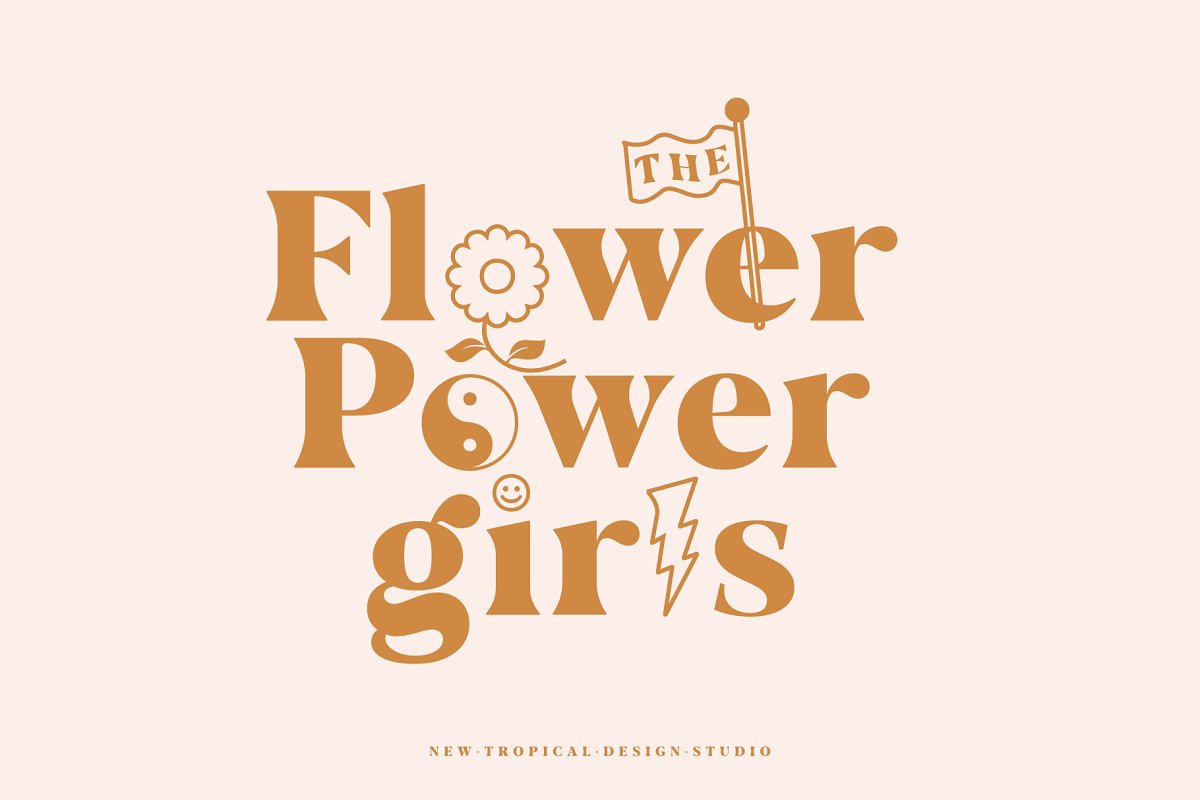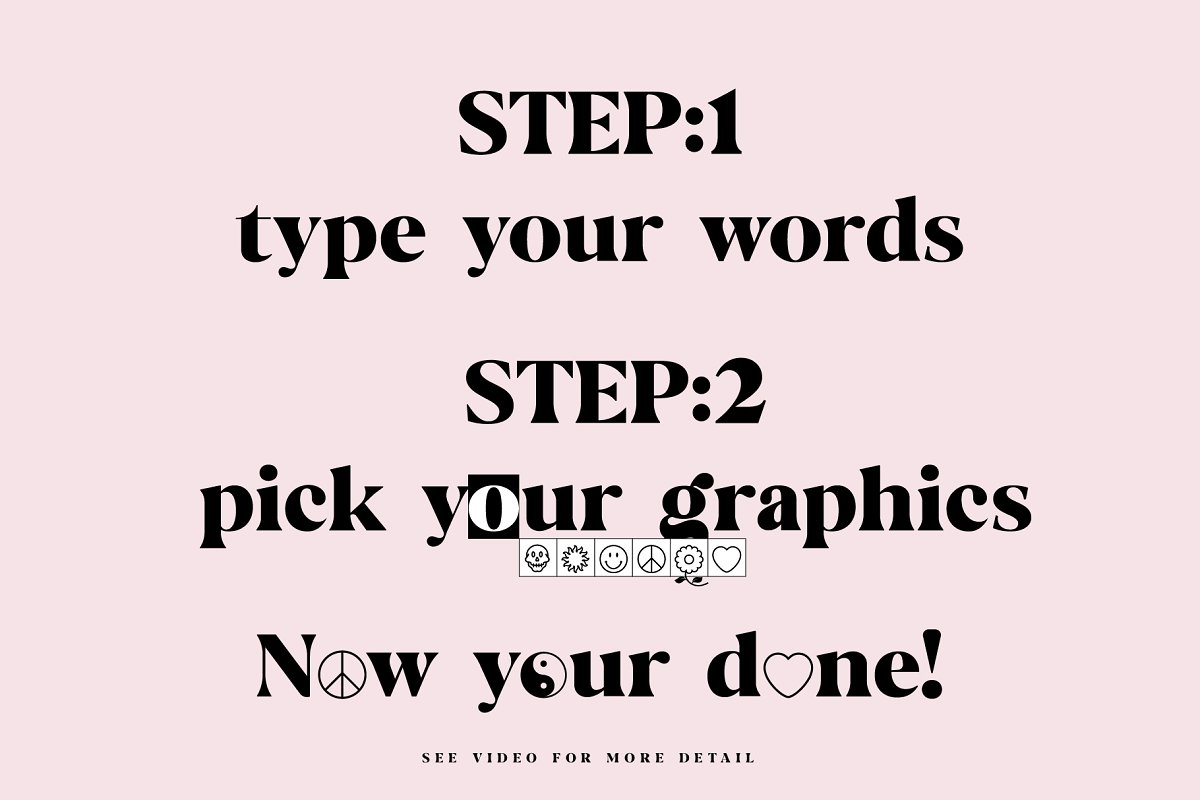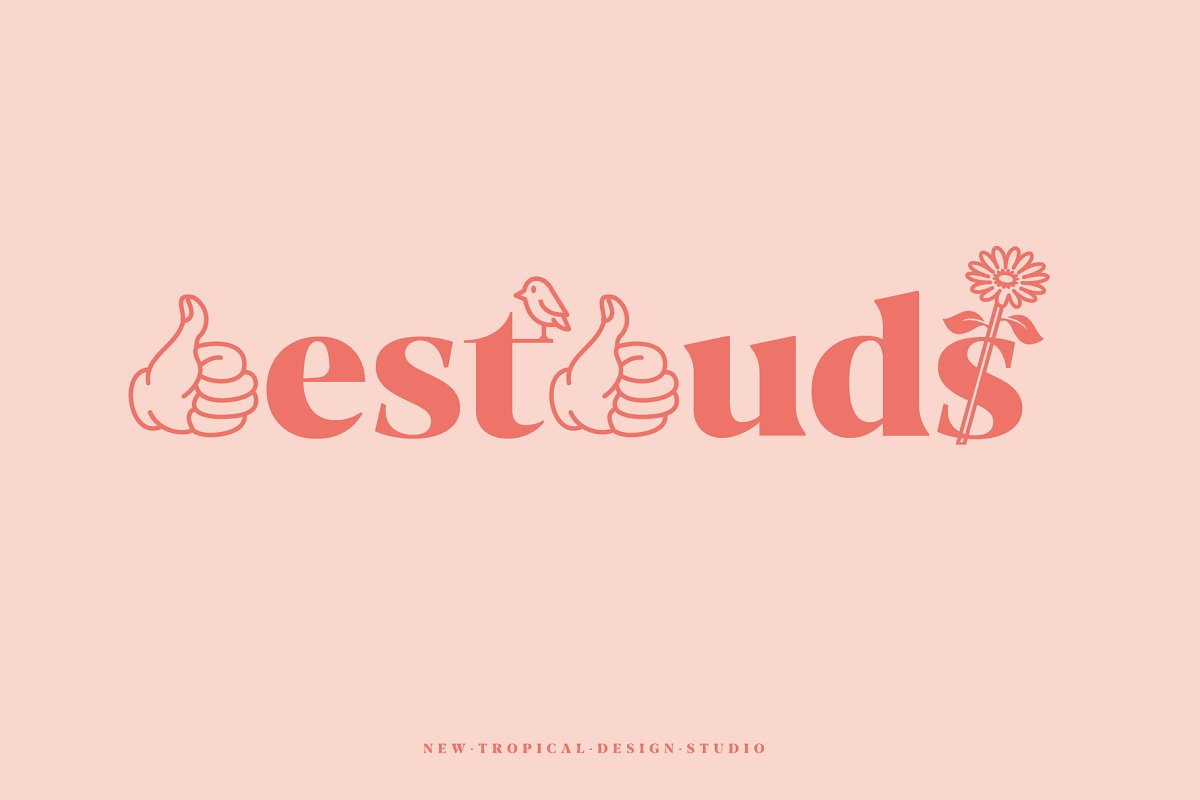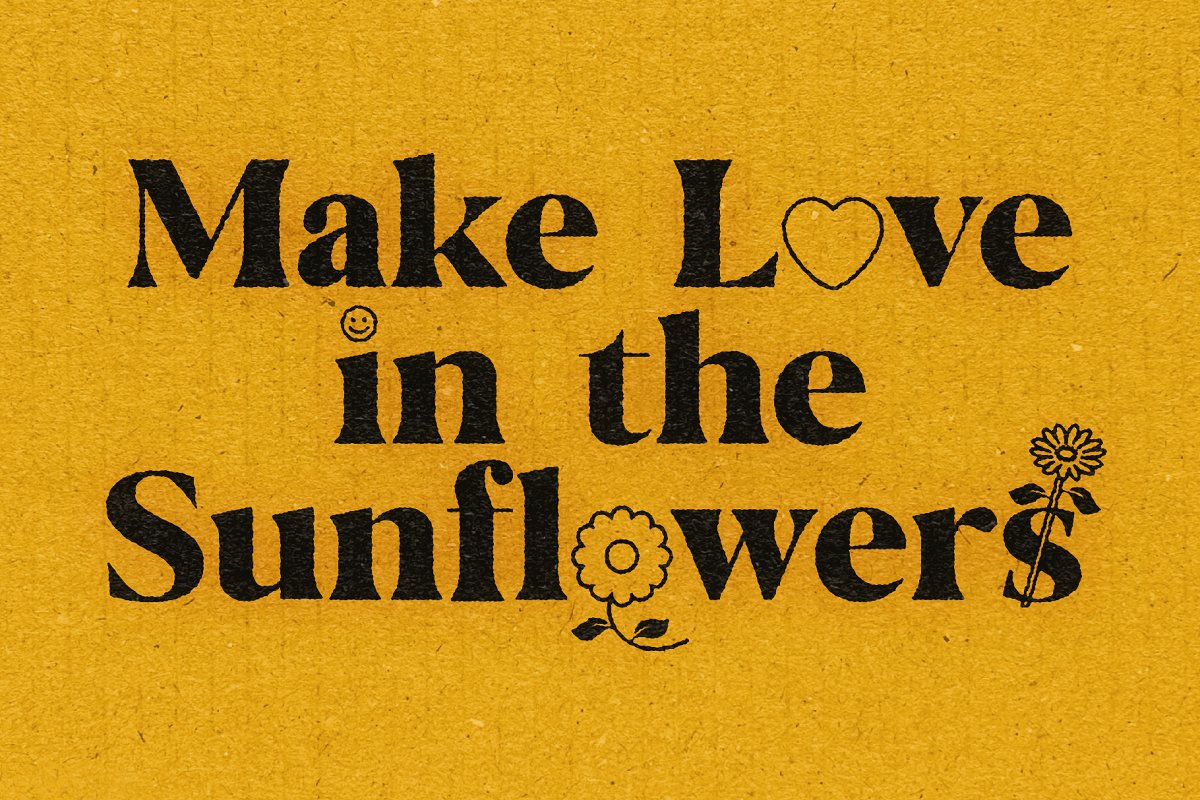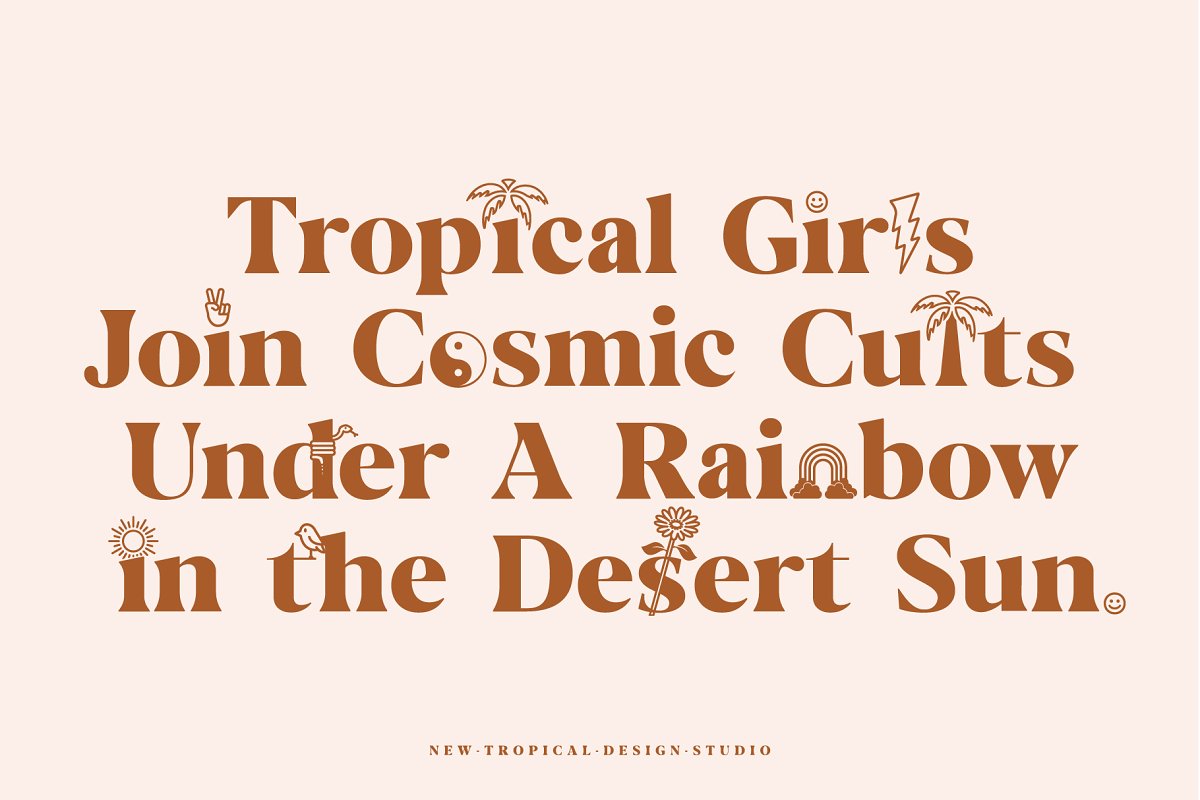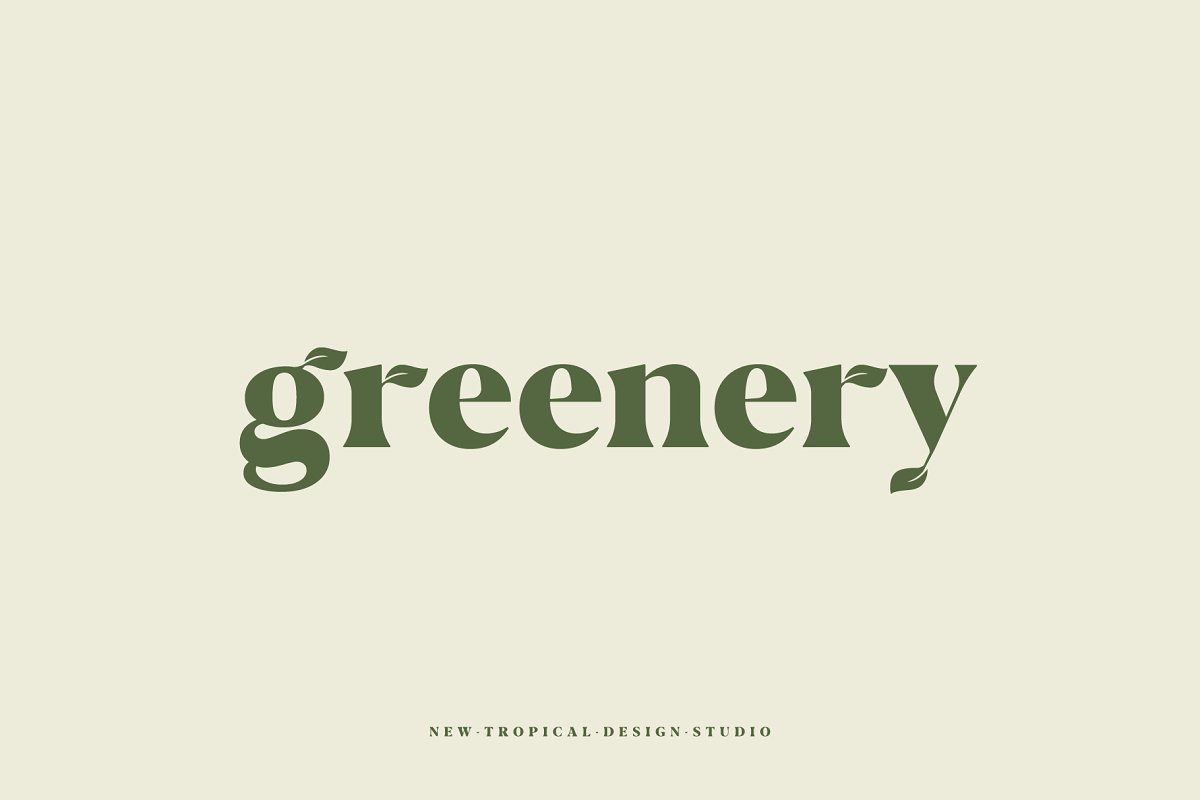
About the Palm Springs Graphic Font
Palm Springs Graphic Font is a one of kind typeface with built in graphics, Just type your text and add intertwined graphic letters with a single click, It’s never been easier to get those good vibes and 70s styles, IMPORTANT INFO: See video in last preview to view how to access alternate graphic glyphs in Canva and Adobe CC, For the vintage mockups on some previews i have used Matchbook Print Machine by RetroSupply: https://creativemarket